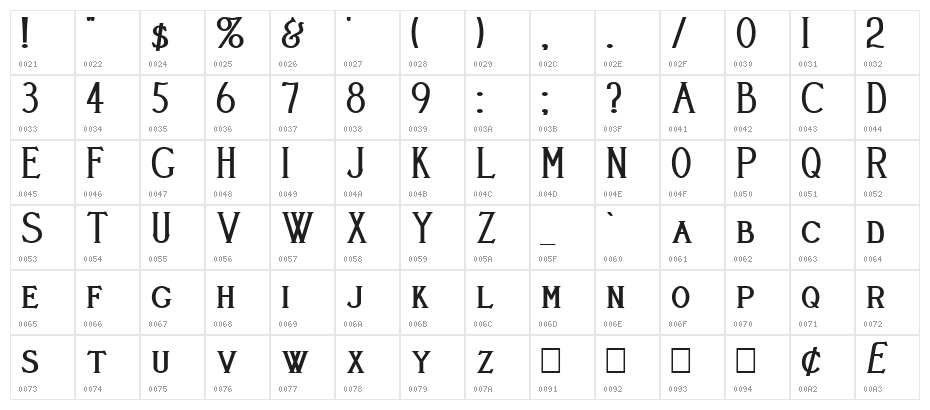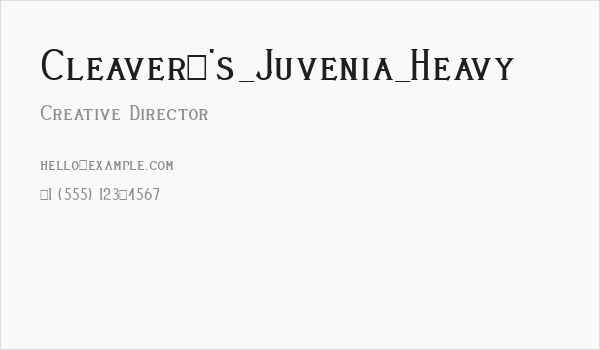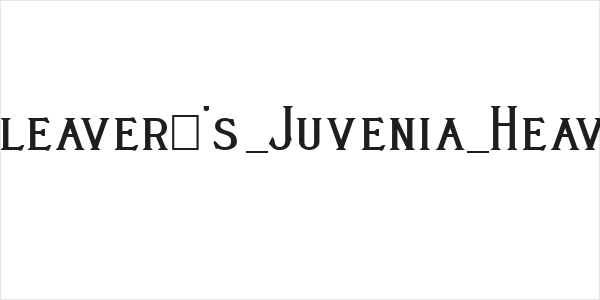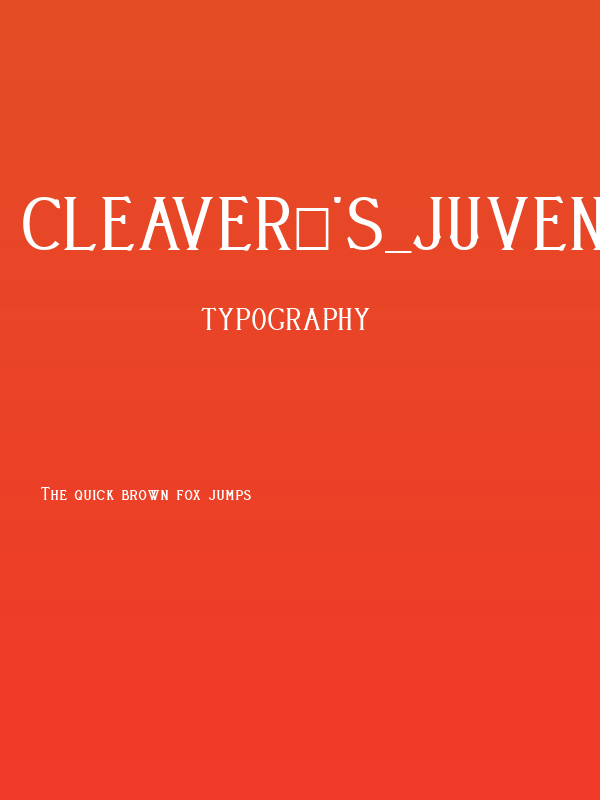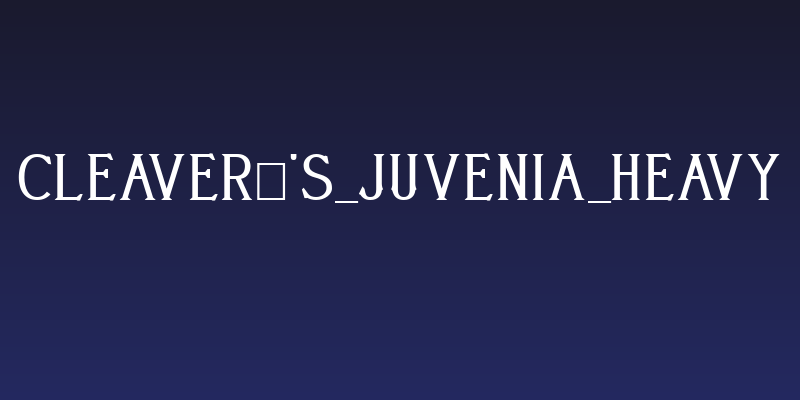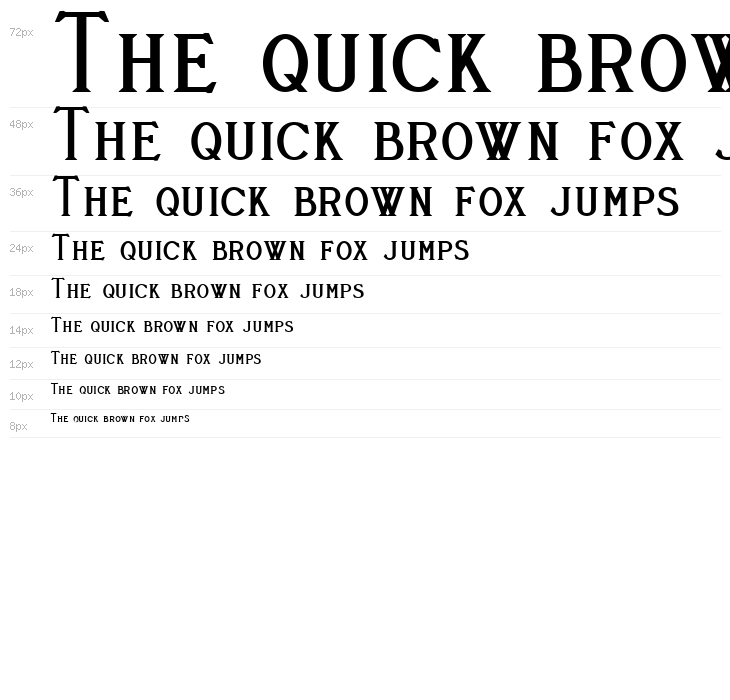
Cleaver's_Juvenia_Heavy Font
Cleaver's_Juvenia_Heavy Description
This font features a bold and commanding presence with its heavy weight and strong serif design. The characters exhibit a classic serif style with pronounced, sharp serifs that add a sense of authority and tradition. The uppercase letters are tall and imposing, while the lowercase letters maintain a consistent and harmonious appearance. The numerals are distinct and clear, ensuring readability. Special characters are well-defined, complementing the overall aesthetic. This font's robust and structured form makes it suitable for impactful and formal applications.
Overall StyleClassic
Use CaseHeadlines, Logos, Editorial
Proposed ProjectsIdeal for book covers, formal invitations, branding materials, and editorial headlines.